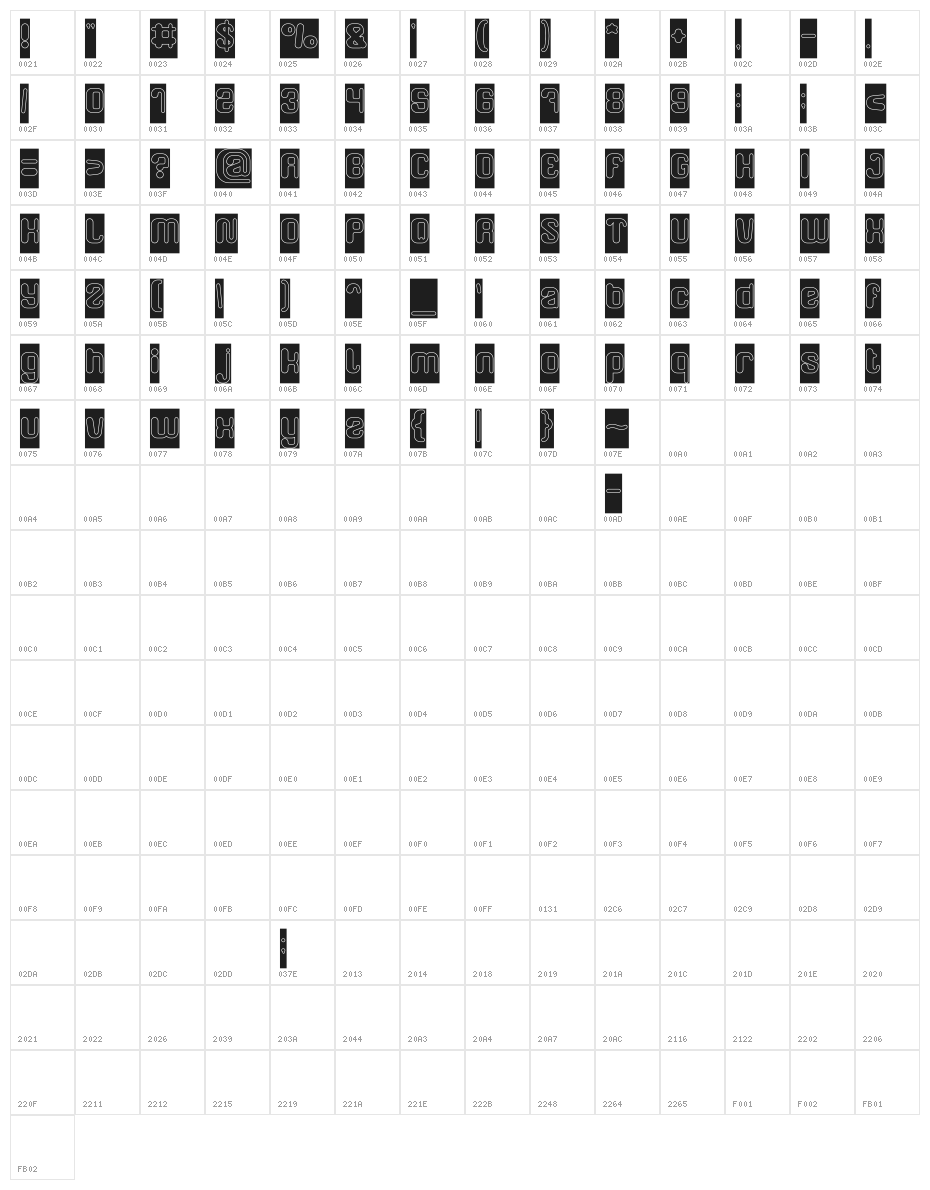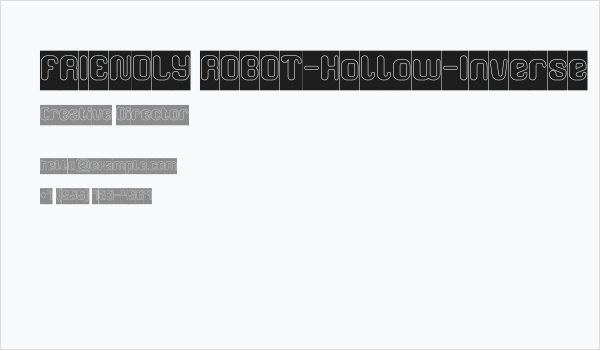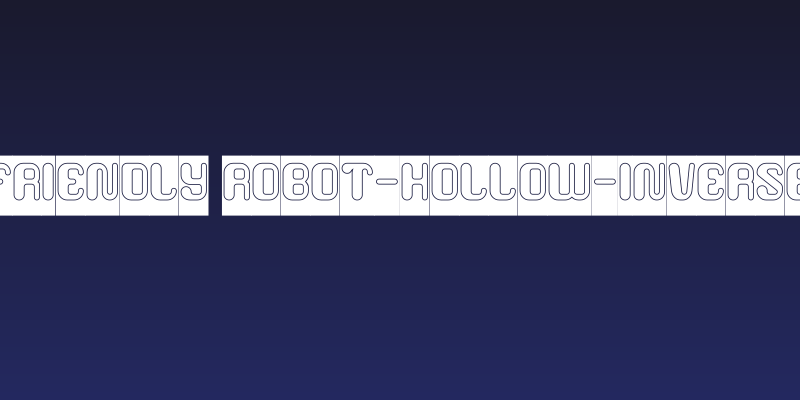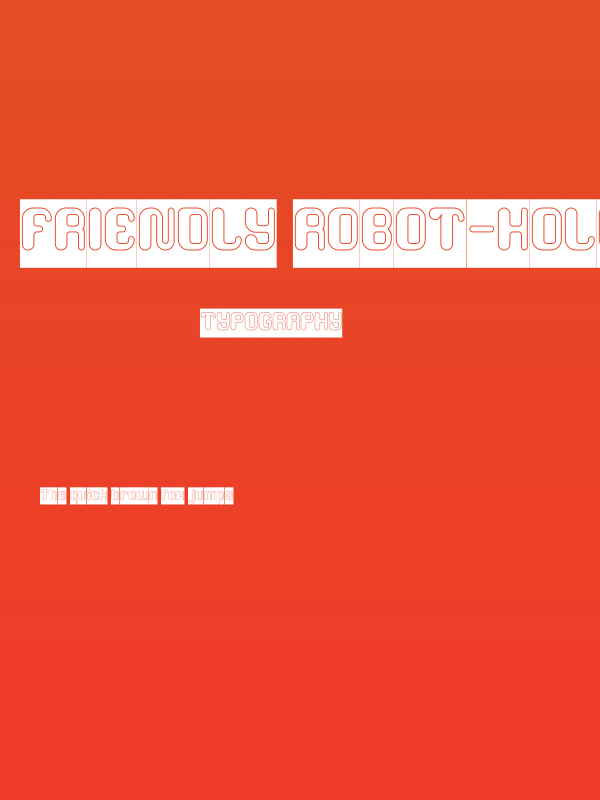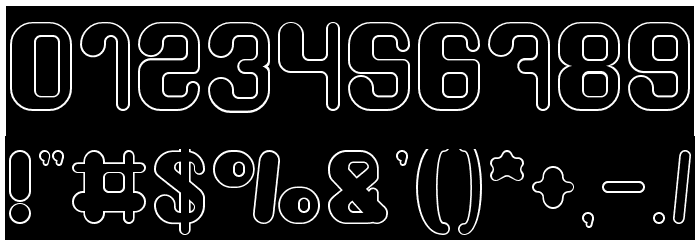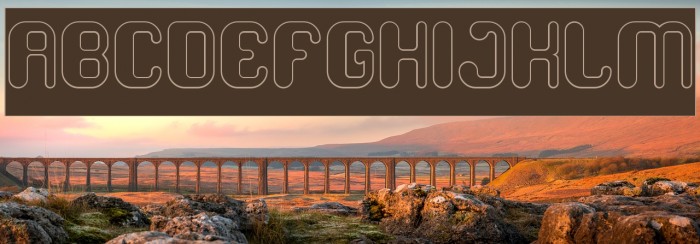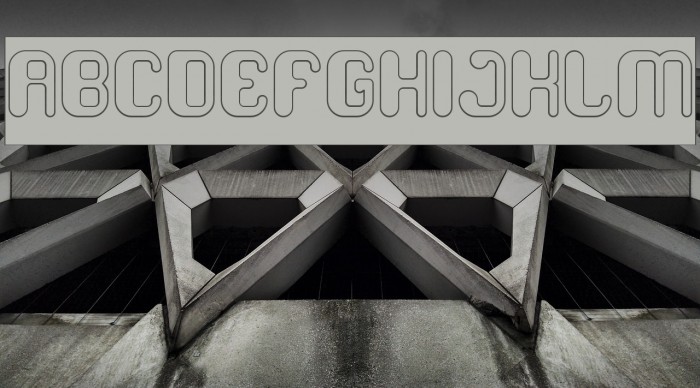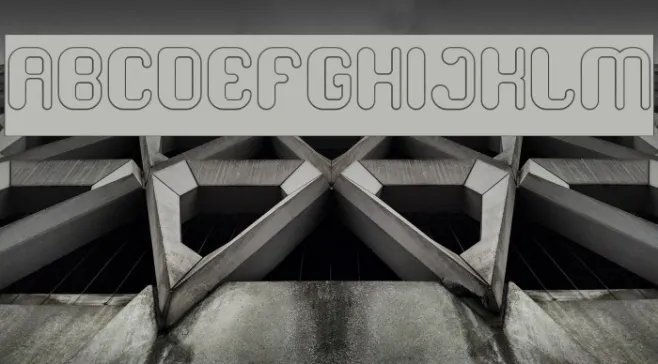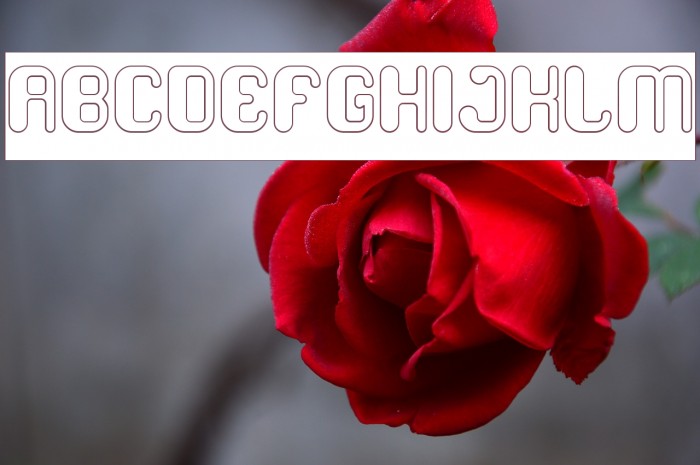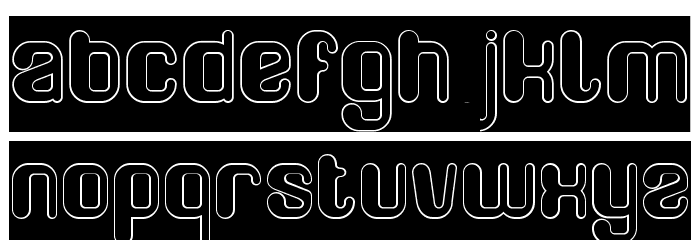
FRIENDLY ROBOT-Hollow-Inverse Font
FRIENDLY ROBOT-Hollow-Inverse Description
This font features a hollow, inverse design with a futuristic and playful aesthetic. The characters are outlined with a consistent stroke width, creating a clean and modern look. The rounded edges and smooth curves give it a friendly and approachable feel, while the hollow interior adds a unique twist. The uppercase and lowercase letters maintain a uniform style, ensuring readability and cohesion. Numbers and special characters are designed with the same outline effect, making them stand out while remaining consistent with the overall theme. This font is ideal for projects that require a modern, tech-inspired look with a touch of whimsy.
| Proposed Projects | Ideal for tech-related branding, children's book covers, futuristic posters, and playful logos. |